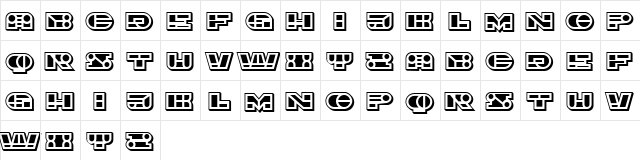
Imbecile Ornamental Filled
Design Context for Imbecile Ornamental Typeface
Imbecile Ornamental is built around its visual character rather than neutral utility — its distinctive forms are designed to make an impression at display sizes.
Font Pairing: Pair with a clean neutral sans-serif for body copy to let Imbecile Ornamental's character lead without overwhelming the composition.
Pro Tip: Use Imbecile Ornamental exclusively at display sizes — it was designed to be seen, not read at length. Let a neutral companion handle body copy.